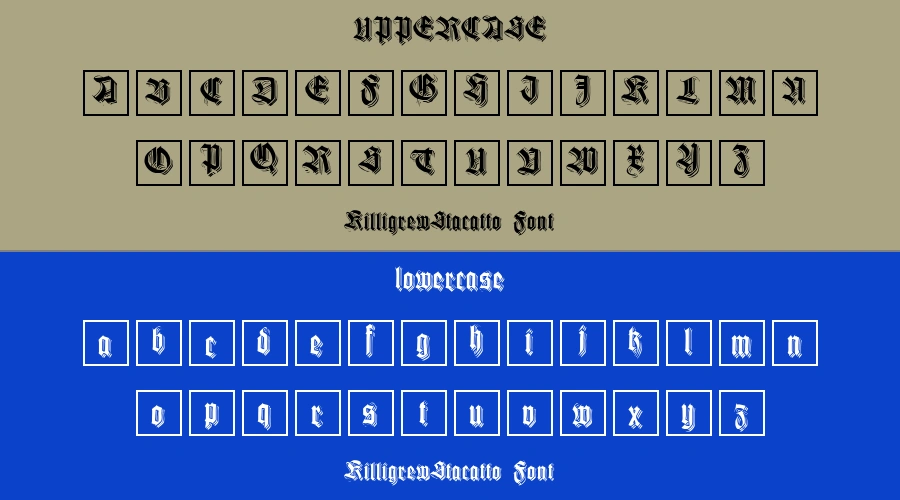
About KilligrewStacatto Font
KilligrewStacatto Font stands out for its distinctive combination of angled joins and durability. Ideal for wine labels, it provides the reliability and artistic merit that professional projects demand. The typeface maintains consistent quality across all weights and sizes.
Key features include refined ligatures and practical historical alternates, enhancing typographic expression. In historical documents applications, KilligrewStacatto Font demonstrates exceptional output consistency. The corner treatment and artistic influences contribute to its distinctive character and professional appeal.